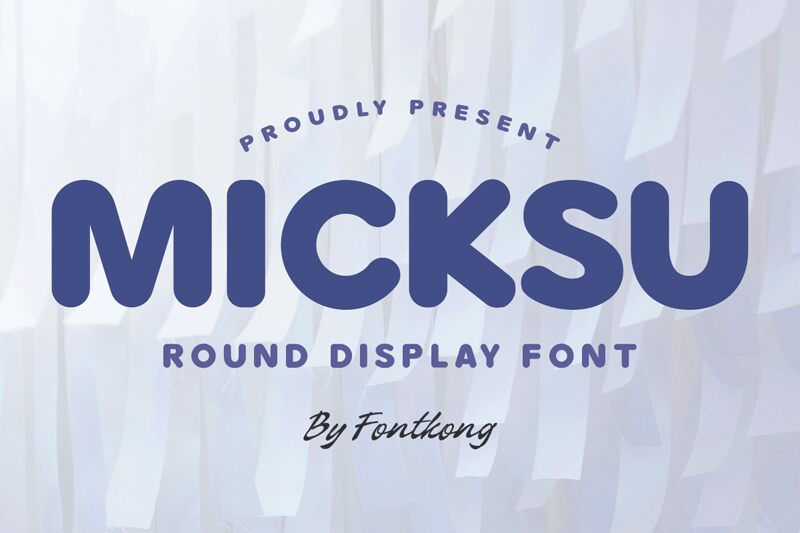
Micksu font by Kong Font is a free sans serif font with a friendly and approachable demeanour. Its rounded and gentle appearance makes it perfect for contemporary applications in branding, advertising, signage, and even in children’s designs. The letters follow a clean and soft approach similar to Google’s and other big corporation designs that try to communicate trust and friendliness.
Use it in cohesive visual identity design, branding campaigns, creative advertisement pieces in print or digital, or signage. Consider developing fun stickers with it, and even use them in poster design or packages for kids. The modern design of this font will fit various types of projects and design concepts regardless of the industry.